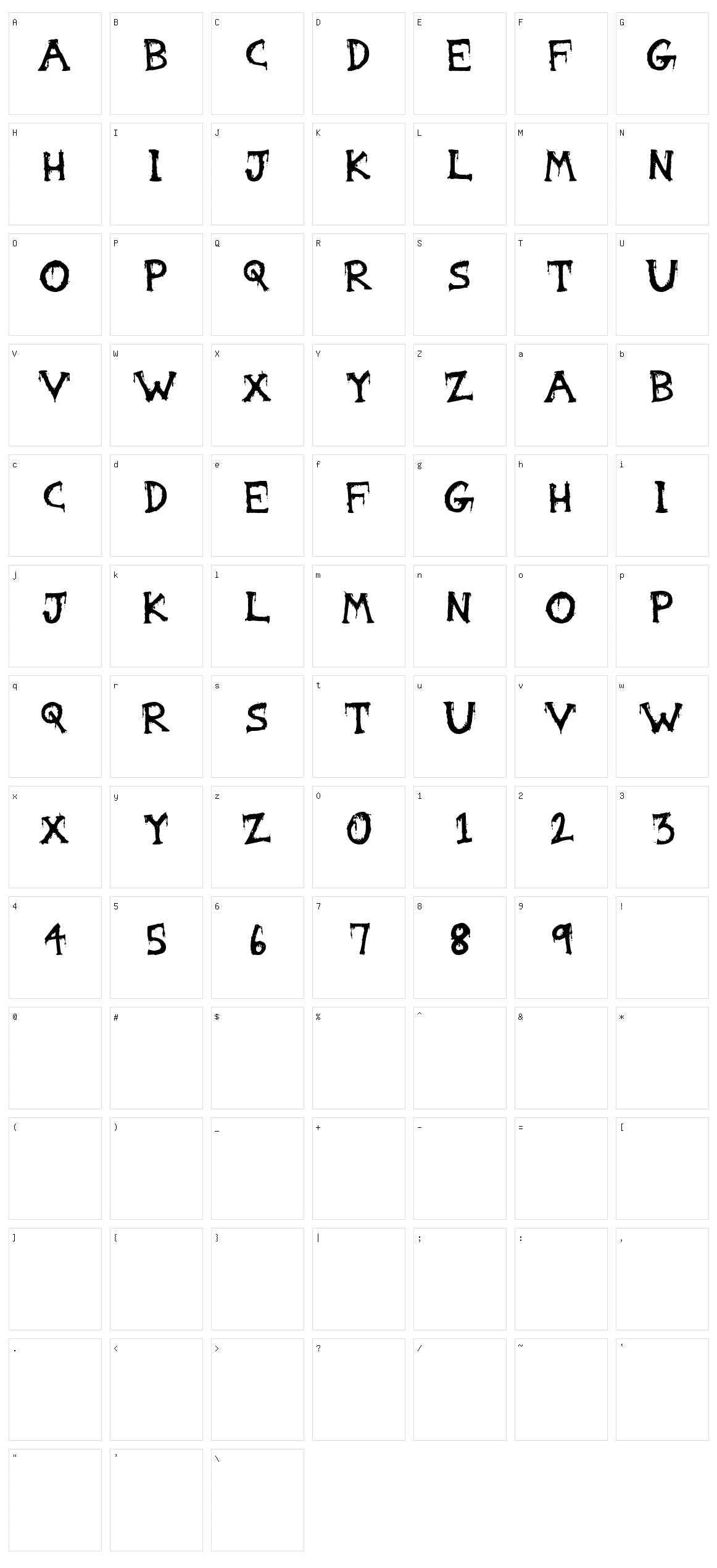
The free font Gorestep is carefully designed by I Like Fonts, showcasing a thoughtful balance of creativity and usability and falls under the Horror font style. When you download the ZIP file, it contains only 26.25 KB of font files, making it lightweight and quick to download. Please review the license details below to understand permitted usage and distribution rights. If license information is not available, we recommend using this font for personal projects only or contacting the author directly for commercial usage permissions.